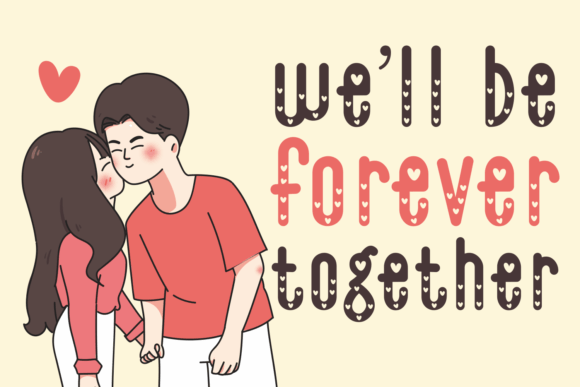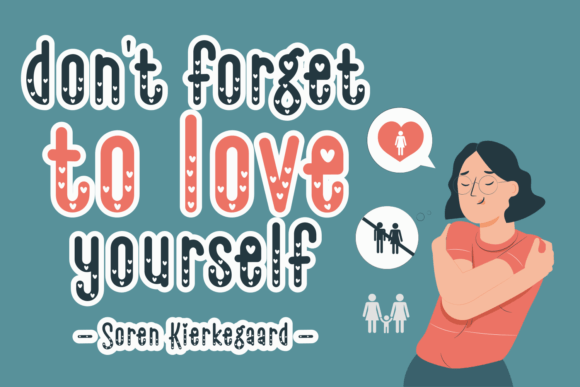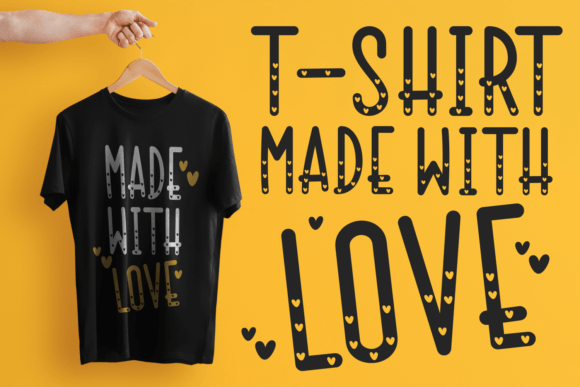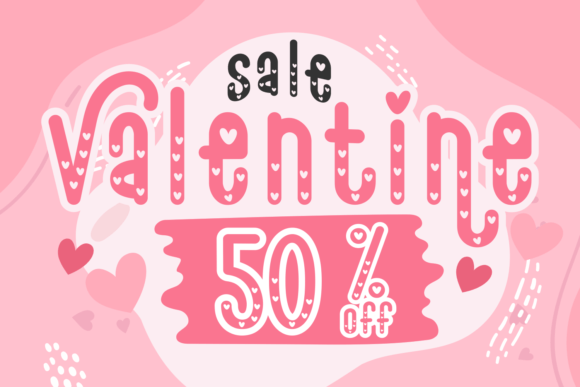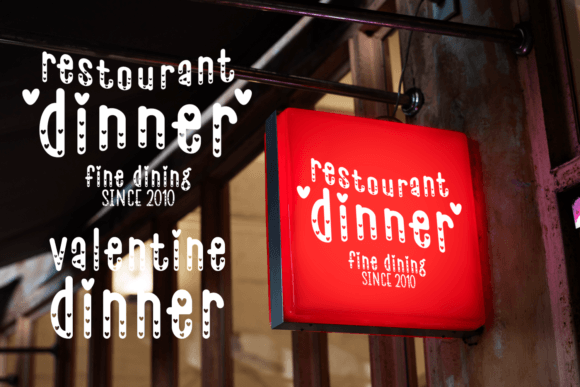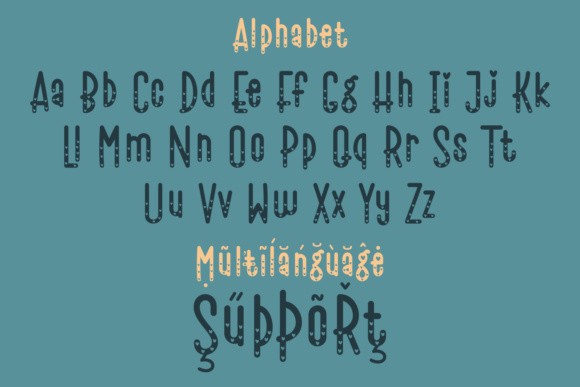
Introducing Elvania Font: The Sweetest Decorative Font for Your Lovely Designs
Are you looking for a font that exudes love and happiness? Do you want to add a touch of sweetness to your designs, especially for Valentine’s Day, weddings, or any occasion that celebrates love? Look no further than Elvania Font, a beautiful decorative font that’s perfect for designers, crafters, and anyone who wants to spread love and joy through their creative projects.
What is Elvania Font?
Elvania Font is a sweet and charming decorative font that’s designed to make your designs stand out. Its unique and elegant style makes it perfect for a variety of projects, from Valentine’s Day cards and wedding invitations to magazine layouts, social media posts, and more. With Elvania Font, you can add a touch of love and whimsy to your designs, making them truly special and memorable.
Features of Elvania Font
So, what makes Elvania Font so special? Here are some of its key features:
- Unique and Elegant Style: Elvania Font has a distinctive and stylish design that’s perfect for creating beautiful and eye-catching designs.
- Perfect for Love-themed Designs: Whether you’re designing for Valentine’s Day, weddings, or anniversaries, Elvania Font is the perfect choice to add a touch of love and romance to your projects.
- High-quality Design: Elvania Font is designed with high-quality and attention to detail, ensuring that your designs look professional and polished.
- Easily Readable: Despite its decorative style, Elvania Font is easily readable, making it perfect for use in a variety of design projects, from headings to body text.
How to Use Elvania Font
Using Elvania Font is easy and straightforward. Here are some ideas for incorporating it into your designs:
- Valentine’s Day Cards and Invitations: Add a touch of love and sweetness to your Valentine’s Day designs with Elvania Font.
- Wedding Projects: Use Elvania Font to create beautiful wedding invitations, save-the-date cards, and other wedding-related designs.
- Magazine Layouts: Add a touch of elegance and sophistication to your magazine layouts with Elvania Font.
- Social Media Posts: Use Elvania Font to create eye-catching social media posts that celebrate love and happiness.
Why Choose Elvania Font?
So, why should you choose Elvania Font for your designs? Here are just a few reasons:
- Unique and Exclusive: Elvania Font is a unique and exclusive font that’s not commonly found, making it perfect for designers who want to stand out.
- High-quality Design: Elvania Font is designed with high-quality and attention to detail, ensuring that your designs look professional and polished.
| Font Name | Elvania Font |
| Author | Ari (7NTypes) |
In conclusion, Elvania Font is a sweet and charming decorative font that’s perfect for designers, crafters, and anyone who wants to add a touch of love and happiness to their designs. With its unique and elegant style, Elvania Font is perfect for a variety of projects, from Valentine’s Day cards and wedding invitations to magazine layouts and social media posts. So why wait? Download Elvania Font today and start creating beautiful and eye-catching designs that celebrate love and joy!